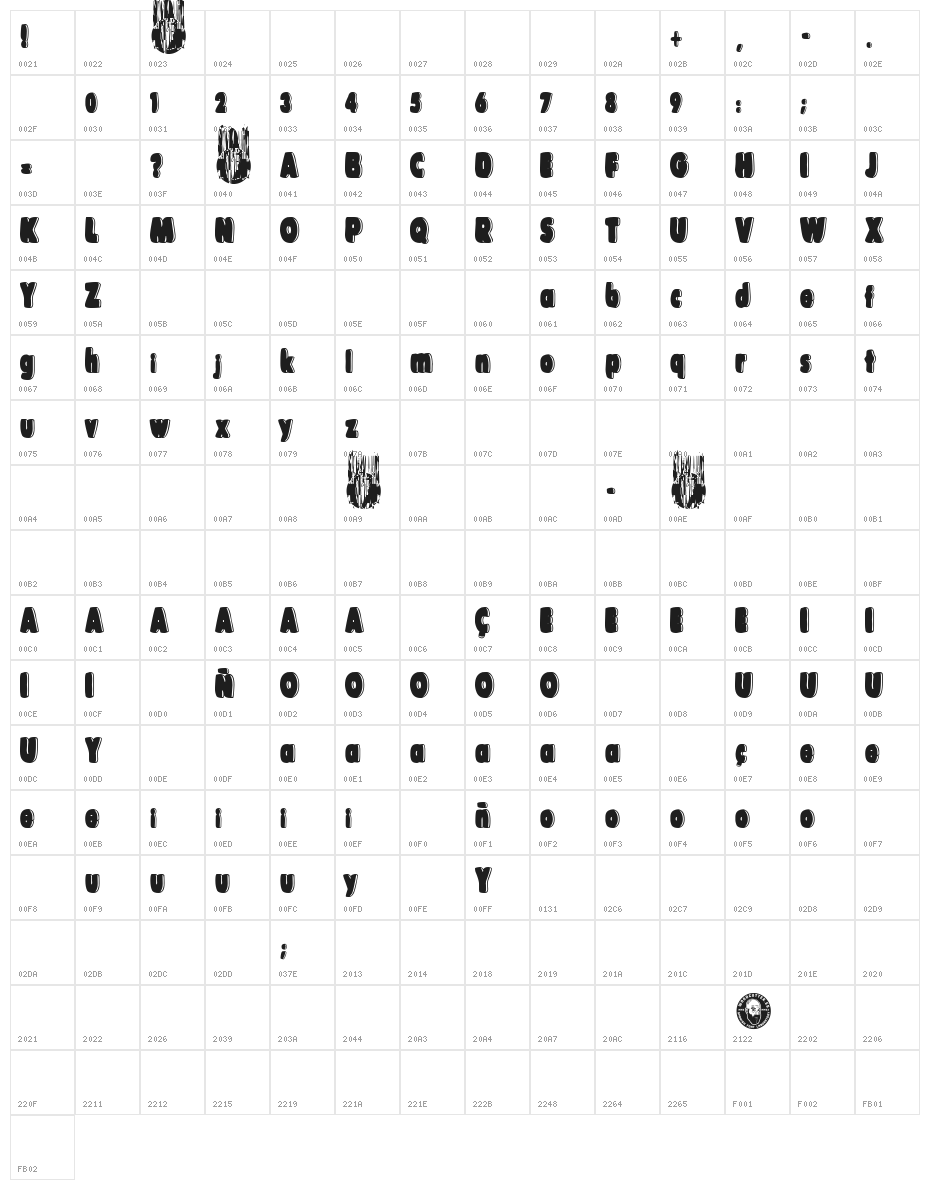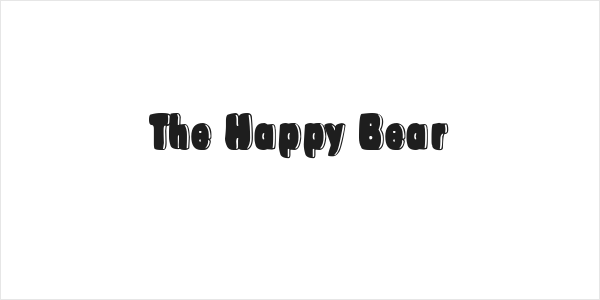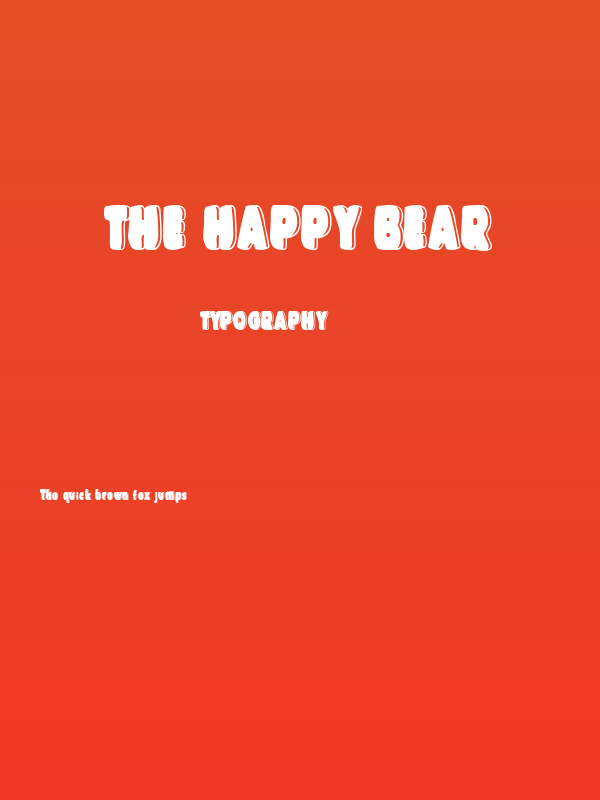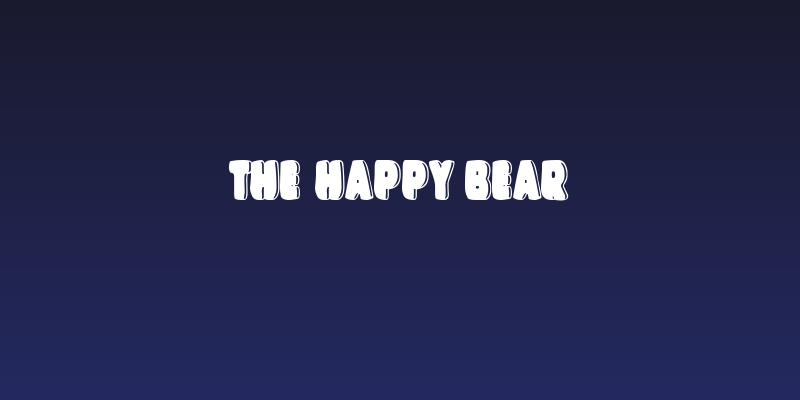
The Happy Bear Font
This playful and bold font features thick, rounded characters with a bubbly appearance. The letters are heavily stylized, giving them a cartoonish and friendly vibe. The font is characterized by its substantial weight and rounded edges, creating a sense of fun and whimsy. The characters are tightly spaced, enhancing the boldness and impact of the text. This font is perfect for projects that require a cheerful and approachable aesthetic, such as children's books, playful branding, or eye-catching headlines. Its unique style makes it stand out, ensuring that any message conveyed with this font is both memorable and engaging.
Overall StylePlayful
Proposed ProjectsChildren's books, playful branding, eye-catching headlines.